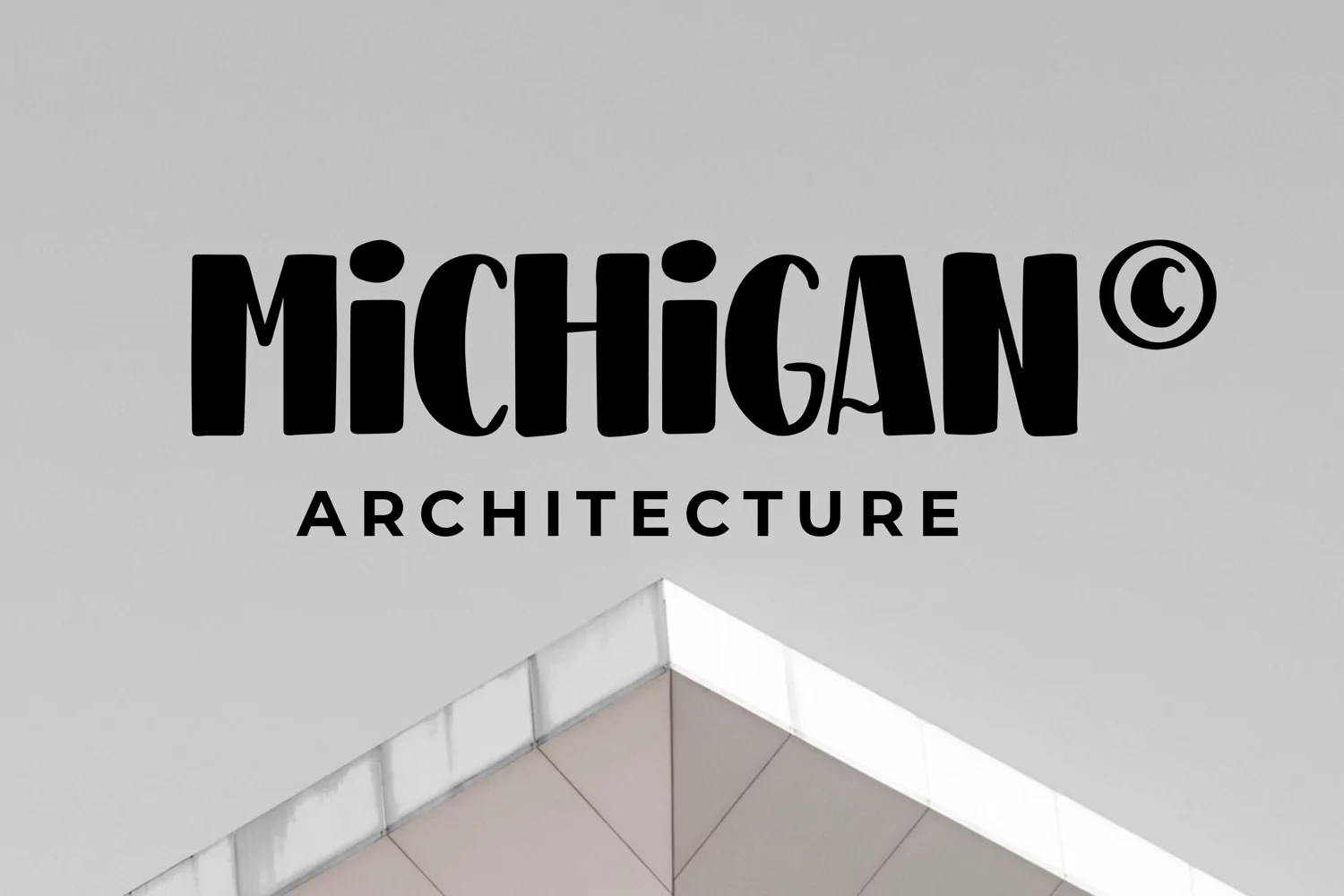
Potato wedges - Playful Bold Font that contain lowercase, uppercase, symbol, and also support multi language. There’s a lot ligatures in this font. This Font also comes with ligatures, alternates and many more. this font suitable for fashion, branding, catalog and other design what you want.
POTATO WEDGES